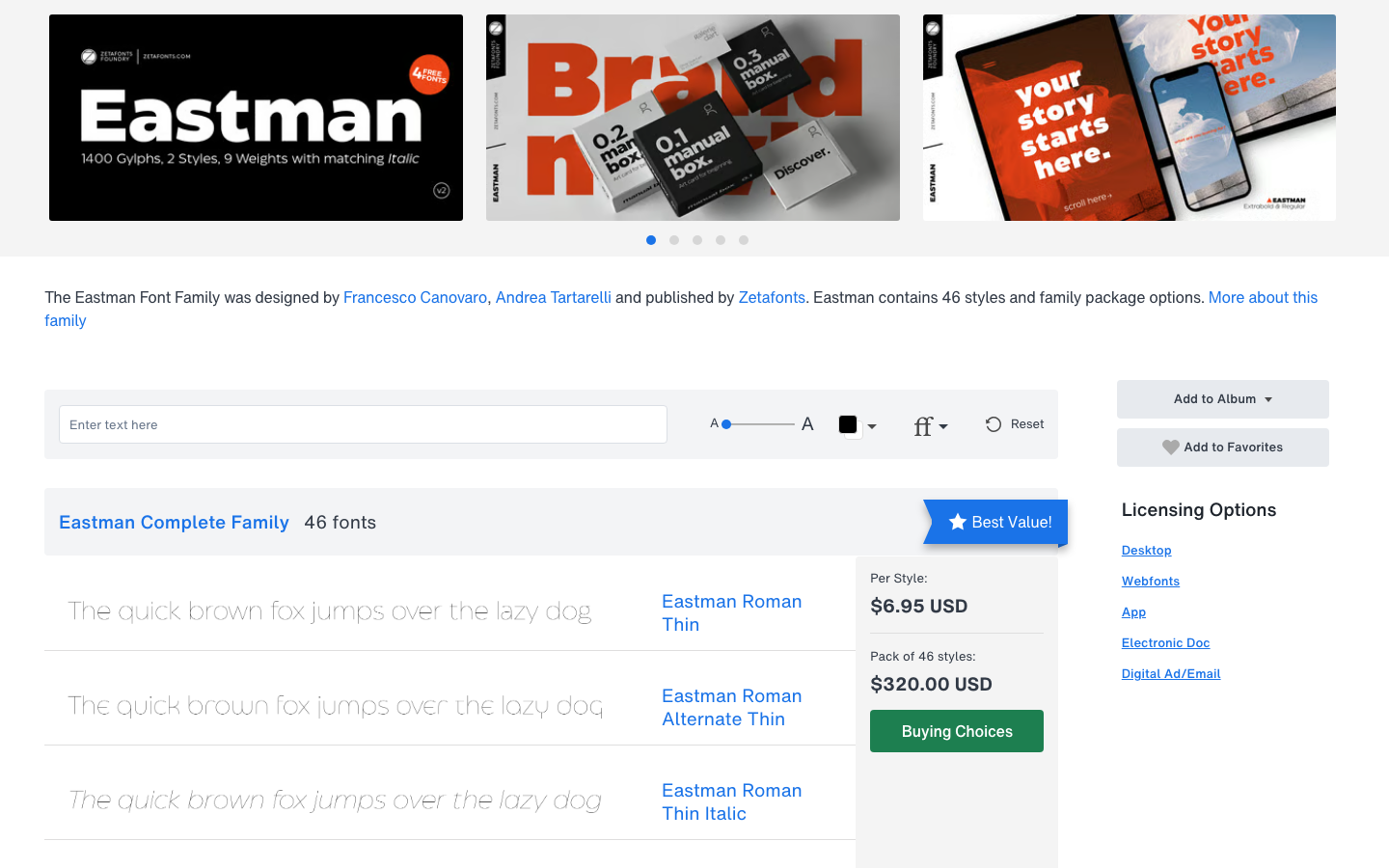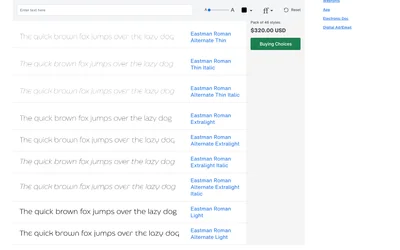
Eastman Alternate vs Founders Grotesk
Eastman Alternate and Founders Grotesk are both sans-serif typefaces sharing a neo-grotesque foundation. Where Eastman Alternate leans minimal, Founders Grotesk brings editorial, condensed. Compare which suits your Branding project.
Recommended: Eastman Alternate
- minimal design character
- From zetafonts
Consider: Founders Grotesk
- editorial, condensed design character
- Suited for Headlines and Corporate
- From klim-type-foundry